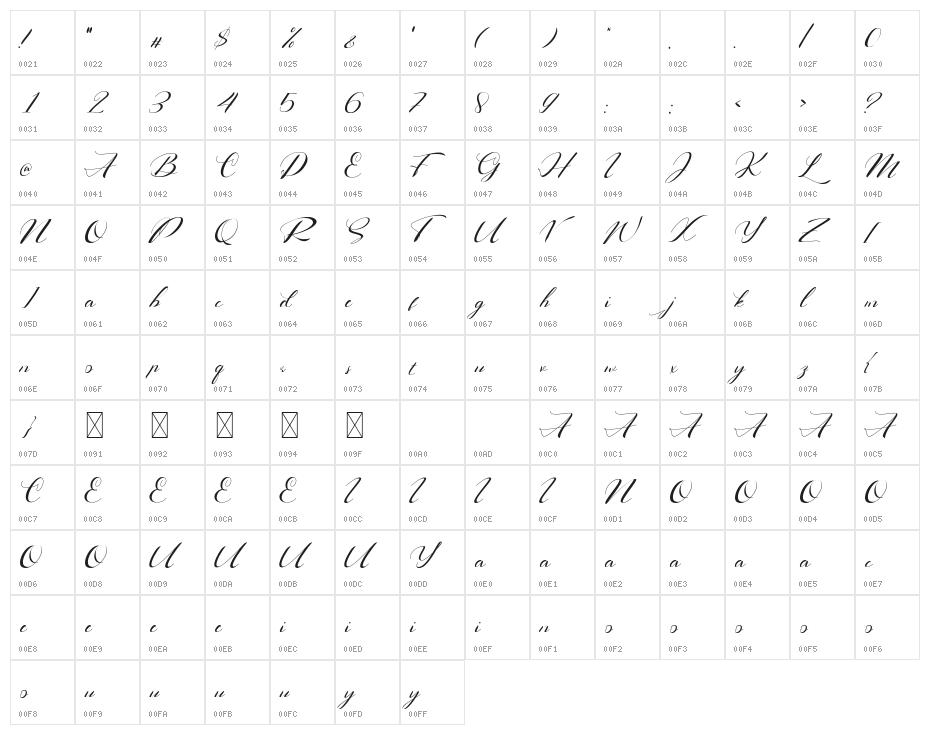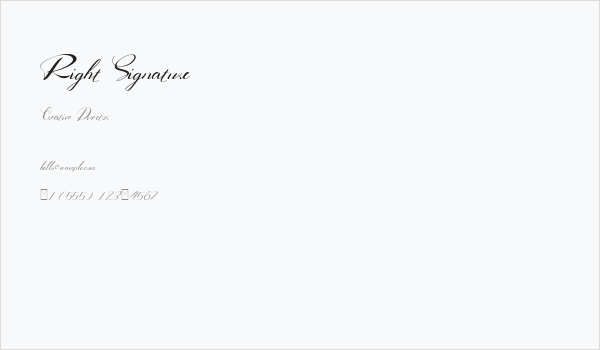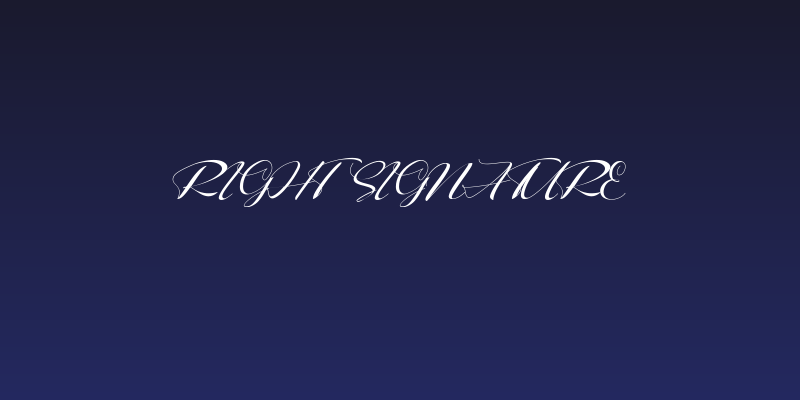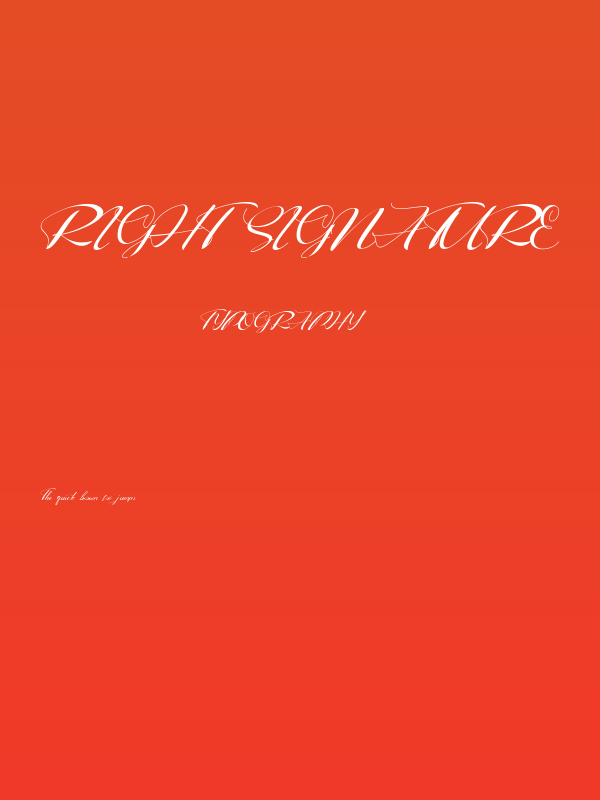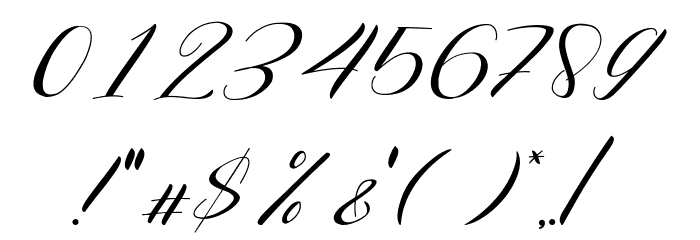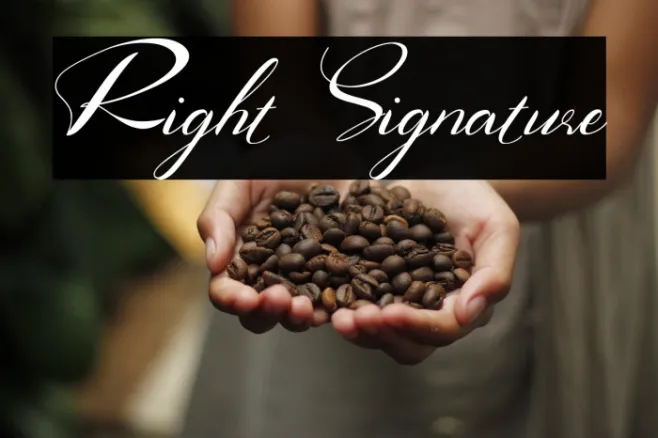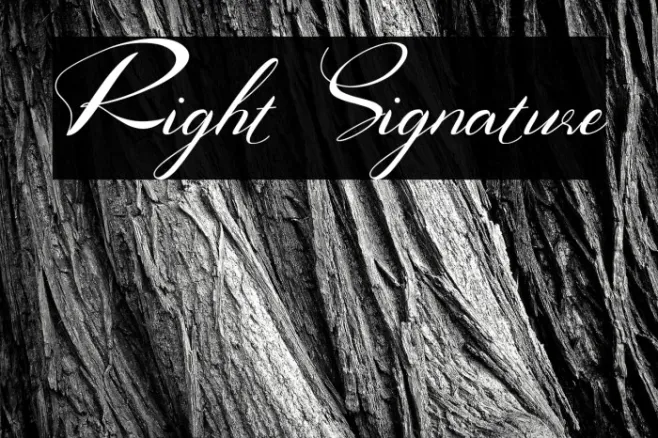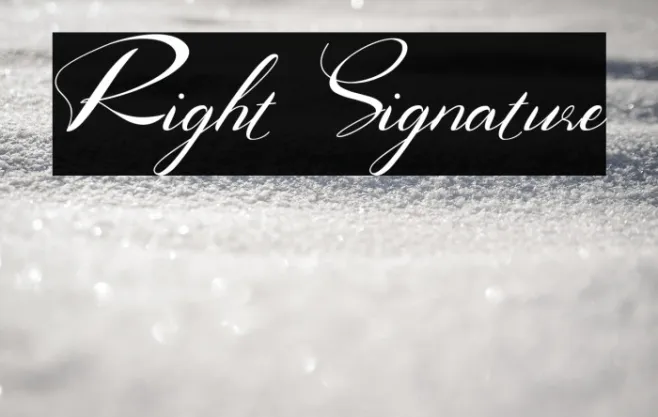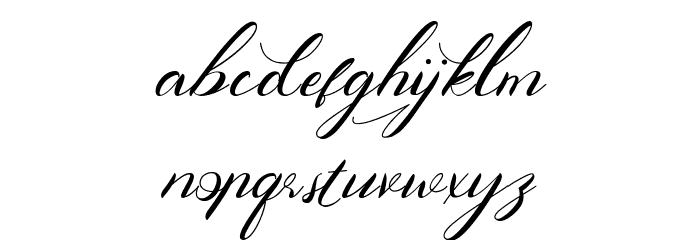
Right Signature Font
Right Signature Description
This elegant script font features a fluid and sophisticated design, characterized by its flowing, interconnected letters that mimic the style of cursive handwriting. The uppercase letters are particularly ornate, with sweeping curves and flourishes that add a touch of grandeur. The lowercase letters maintain a consistent style, offering a harmonious blend of readability and artistic flair. The numerals and special characters are crafted with the same attention to detail, ensuring a cohesive look across all text. This font's graceful appearance makes it ideal for formal invitations, branding, and any project requiring a touch of elegance.
| Overall Style | Elegant, Formal |
| Use Case | Headlines, Invitations, Branding |
| Proposed Projects | Ideal for wedding invitations, luxury branding, elegant stationery, and formal event programs. |